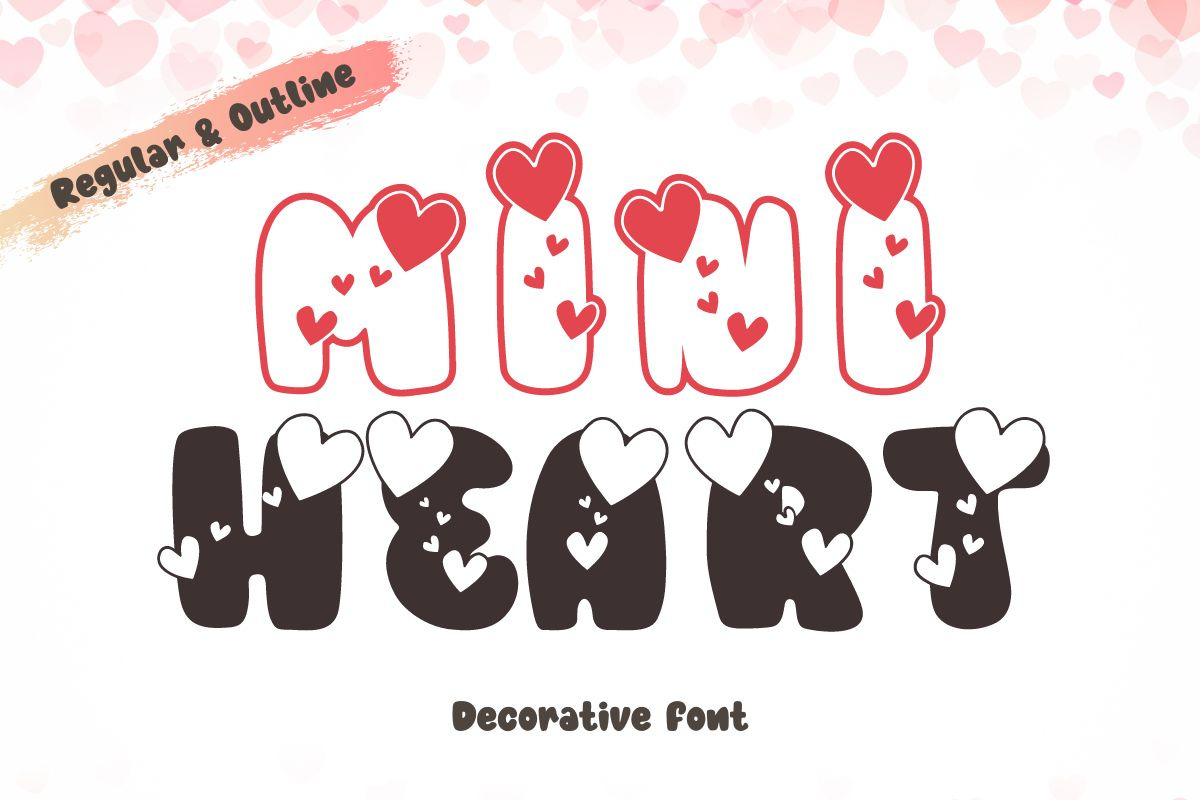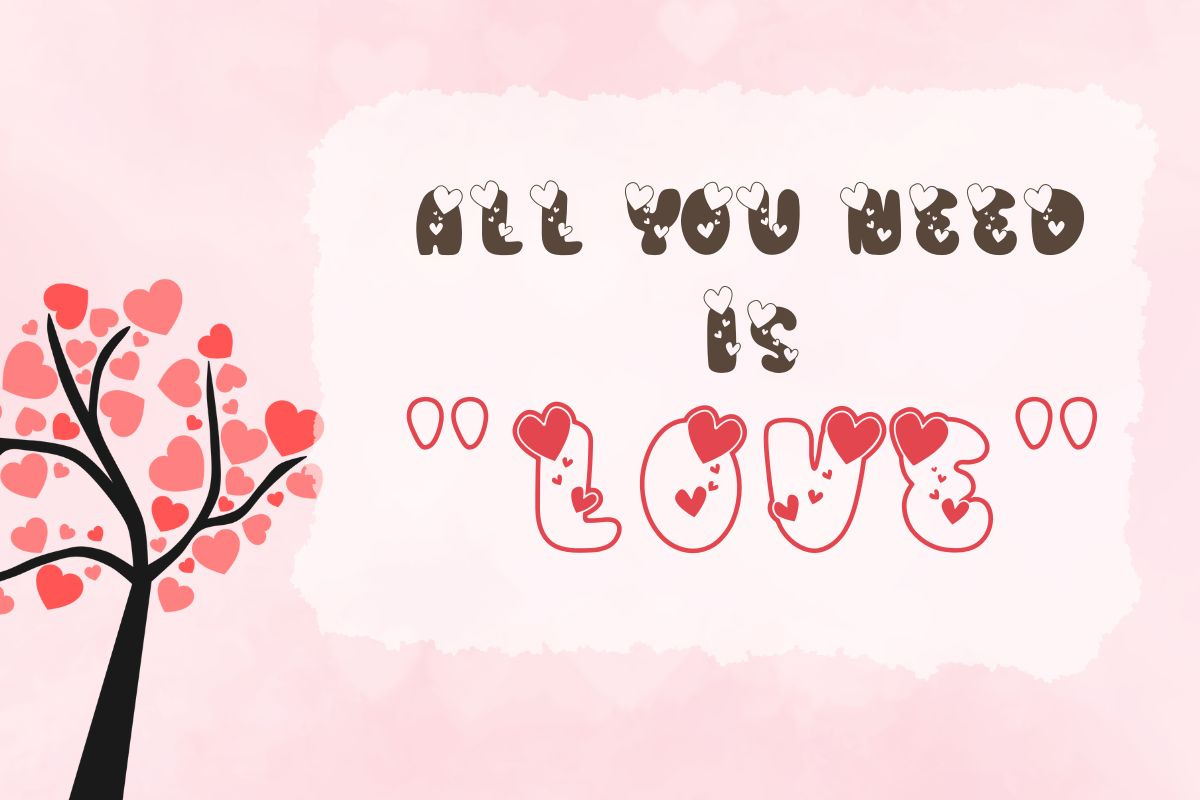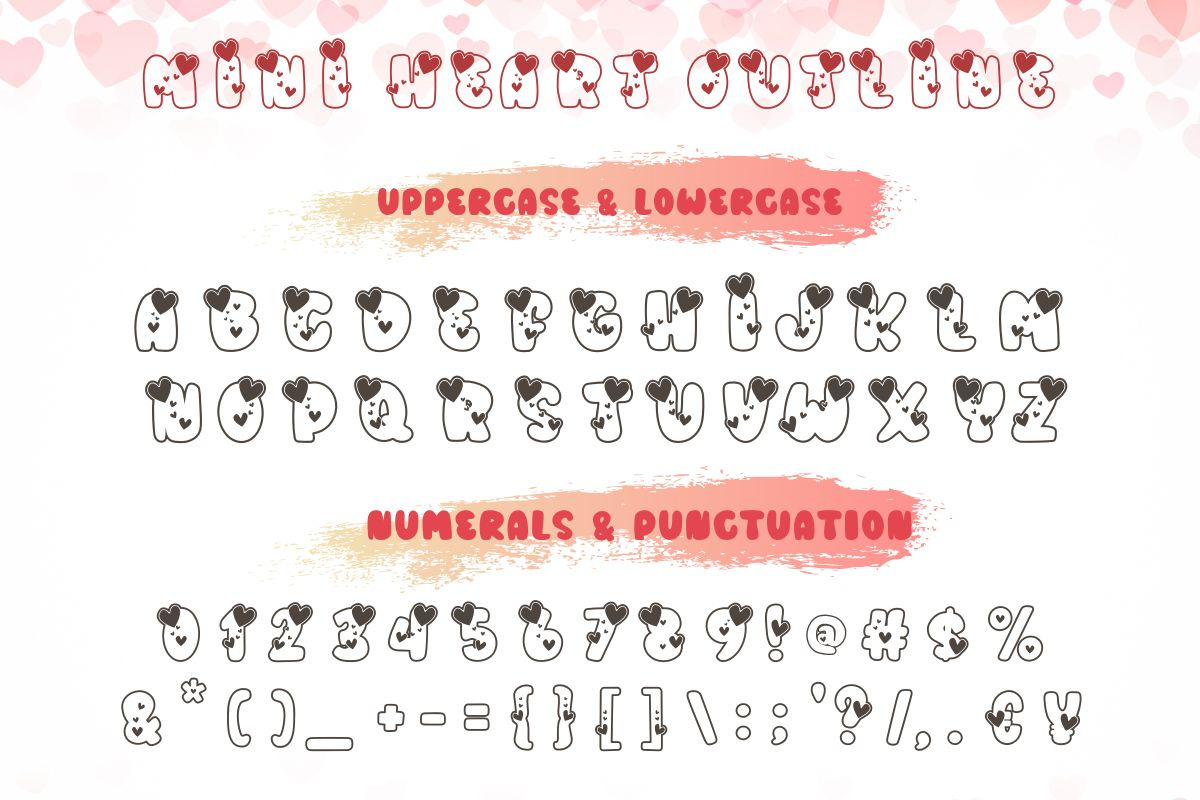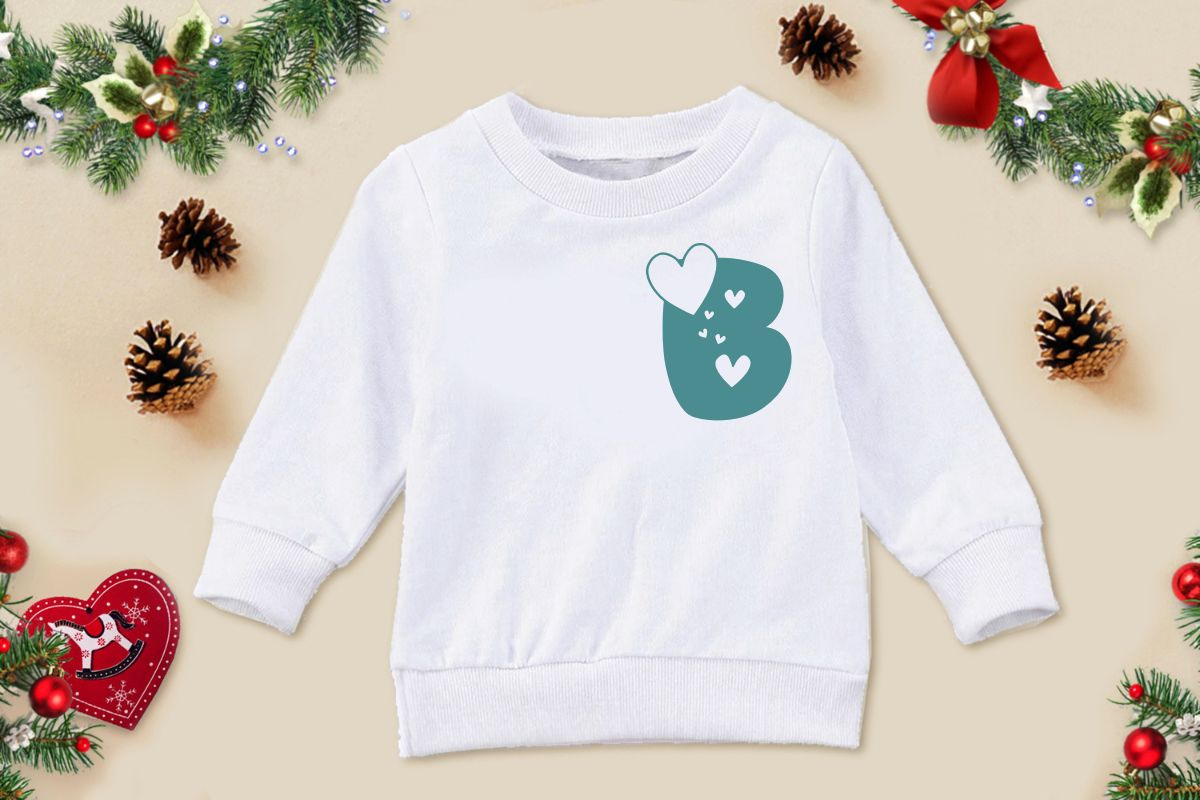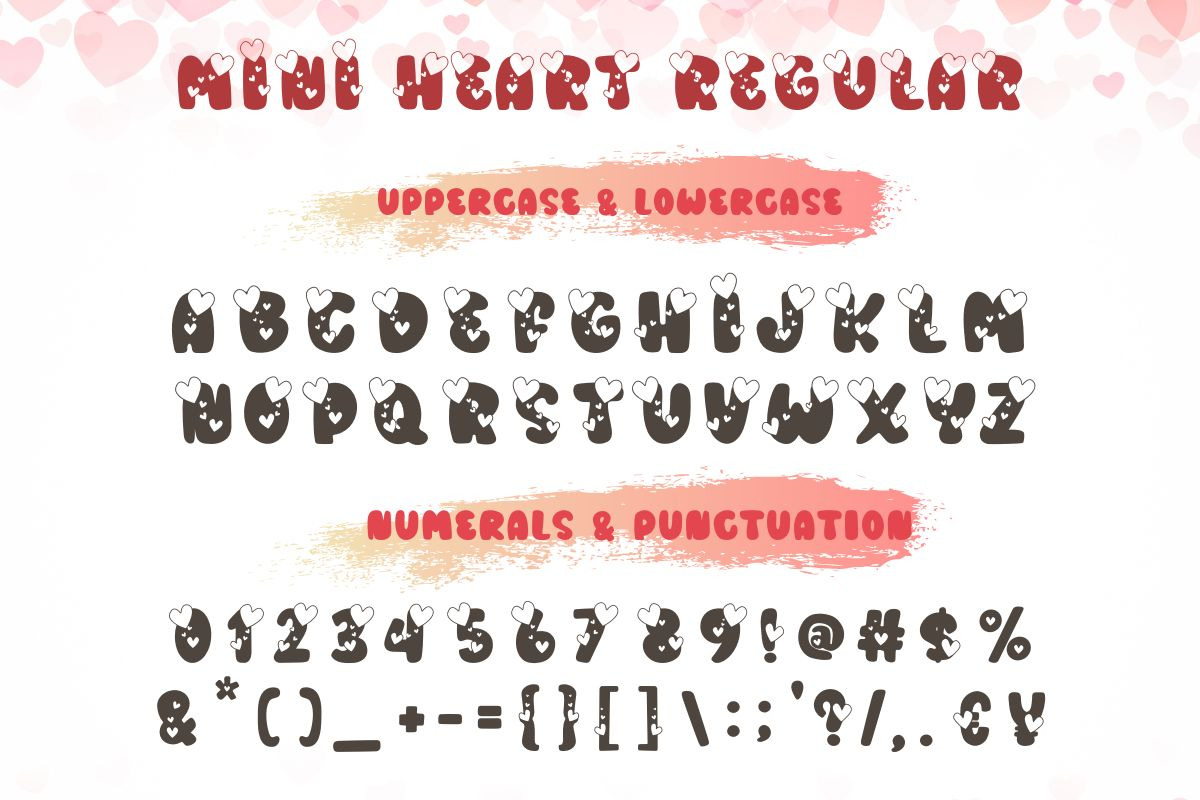
Mini Heart - Cute Decorative Font
Mini Heart is a cute decorative display font featuring playful rounded letters filled with tiny heart details. This font includes both Regular and Outline styles, making it perfect for layered designs and creative craft projects.
Mini Heart is ideal for:
- Valentine’s Day designs & love quotes
- Kids apparel & baby clothing designs
- T-shirts, sweatshirts, mugs & pillows
- Stickers, sublimation & Cricut projects
- Greeting cards & romantic typography
- Holiday and seasonal crafts
With its bold, bubbly shapes and sweet heart accents, Mini Heart adds a charming and lovable touch to both digital and print creations.